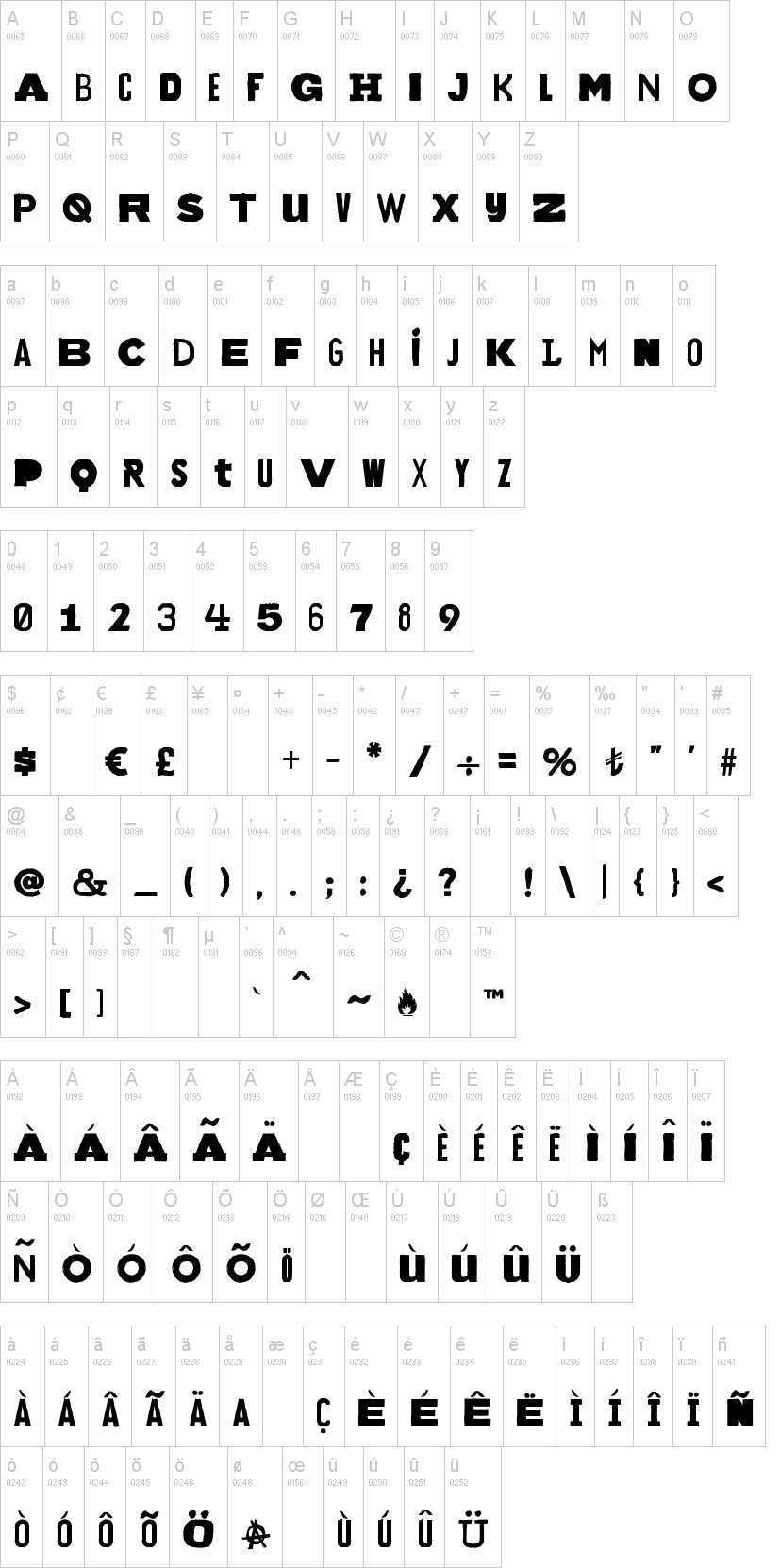
bakuninstencil.ttfbakuninoutline.ttfNote of the authorBakunin is a font family which named after anarchist philosopher Mikhail Alexandrovich Bakunin.
There is three types of fonts as Regular, Stencil and Outline.